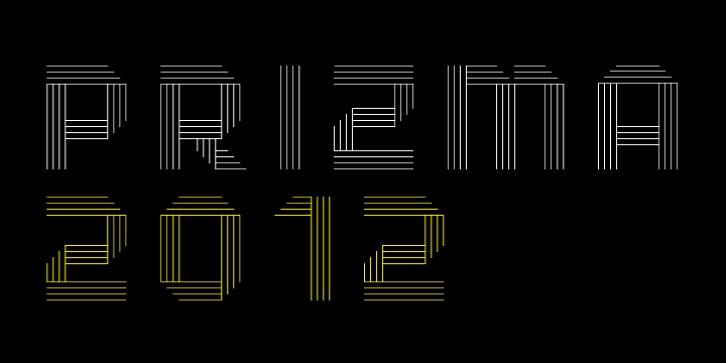
Prizma2012 was designed by Richard Granados and published by Stereo Type Haus. Prizma2012 contains 4 styles and family package options.
A futuristic grid-based interpretation of the classic Prisma by Rudolf Koch (1927-29). Prizma2012 breaks away from typical rounded characteristics of most Multiline designs and embraces 45 degree angles, a rigid grid system and open ended terminals. Intended for use at large sizes, the family comes with four weights for optimal impact.
Prizma2012 Light·
Prizma2012 Medium·
Prizma2012 Bold·